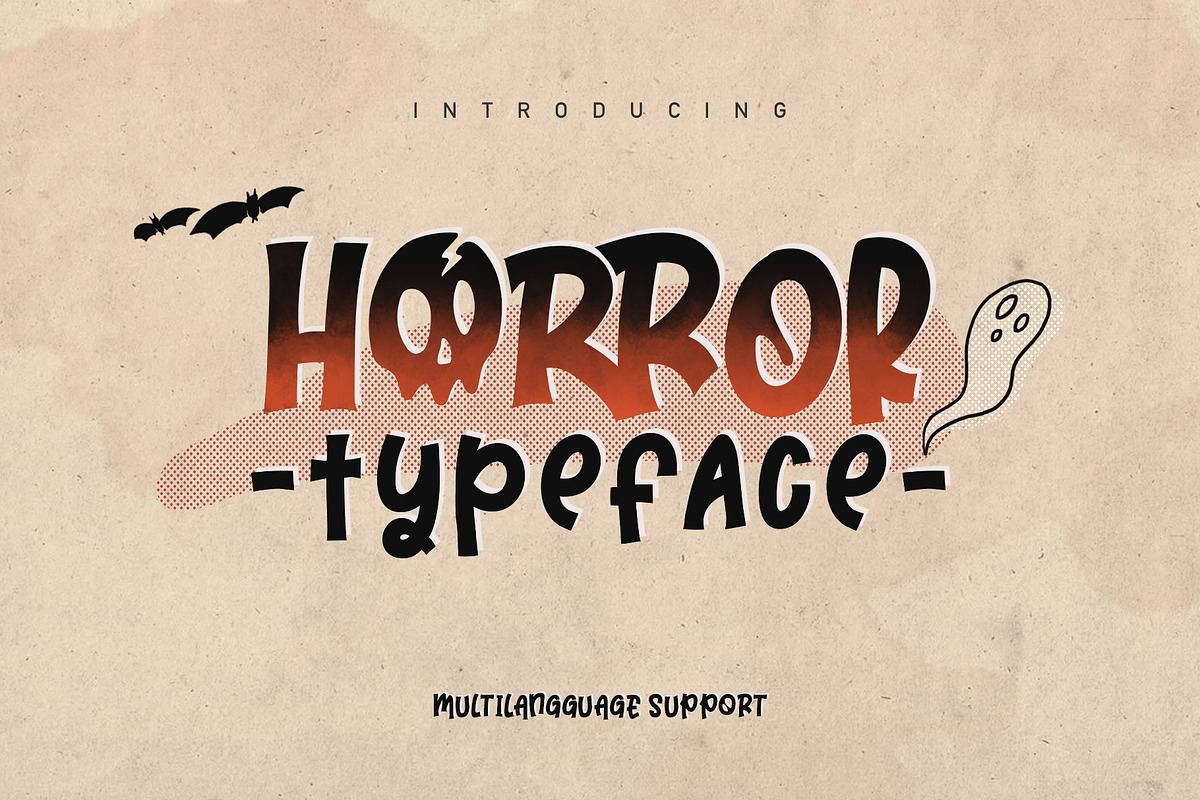
Horror Typeface Free Download is a spooky, chilling font designed to evoke fear and excitement. With jagged edges, distressed textures, and eerie details, this font is perfect for Halloween designs, horror movie posters, haunted house branding, and anything that requires a dark, thrilling atmosphere. It’s bold, creepy, and designed to grab attention in the best frightful way.
Using the Horror Typeface Free Download gives your projects a sense of suspense and drama. Whether you're working on creepy event flyers, horror-themed merchandise, or spooky graphics, this font adds the perfect touch of terror and style.